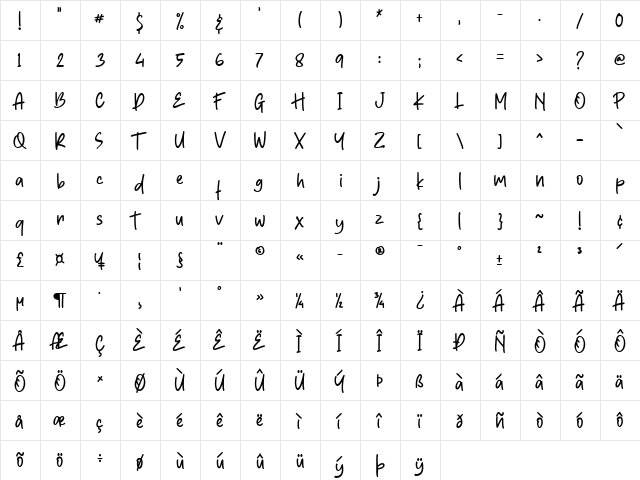
Father's Entreaty - Personal Us Regular
Design Context for Father's Entreaty - Personal Us Typeface
Father's Entreaty - Personal Us is a composed and adaptable typeface that performs quietly and consistently across a wide range of design contexts.